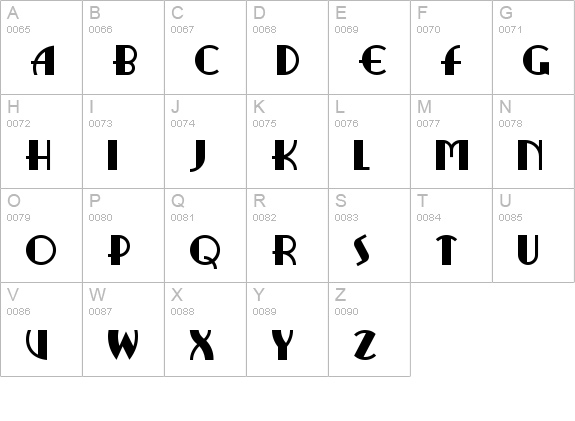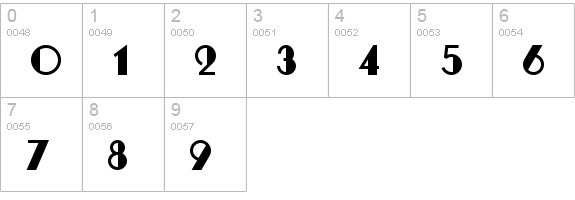
RitzyRemixNF Font Details
Introducing RitzyRemixNF font, a modern and stylish typeface that exudes elegance and sophistication. With its sleek lines and unique design, RitzyRemixNF is perfect for adding a touch of luxury to any project. This versatile font is ideal for a wide range of design applications, from branding and advertising to invitations and social media graphics. Its bold yet graceful appearance makes it stand out from the crowd and leaves a lasting impression on viewers. Best of all, RitzyRemixNF is free to download at FontsMarket.com, making it accessible to designers and creatives of all levels. Don't miss out on this opportunity to elevate your designs with this exquisite font. Download RitzyRemixNF today and add a touch of glamour to your projects!